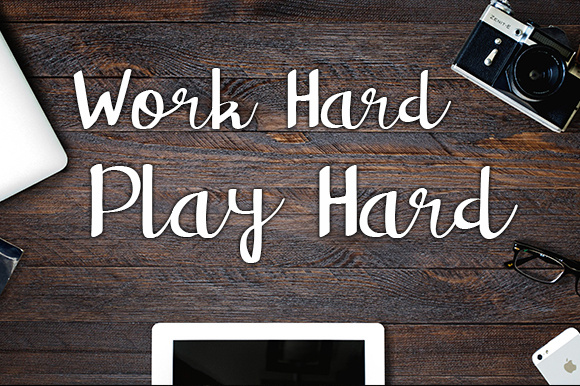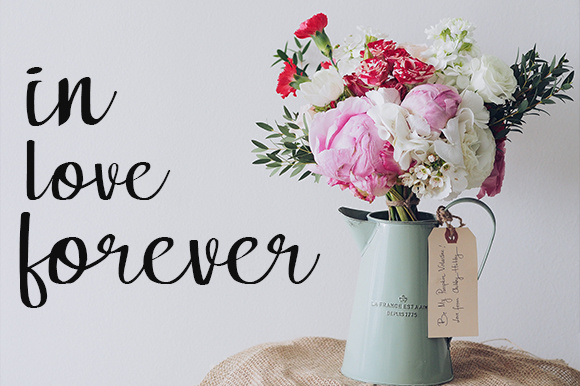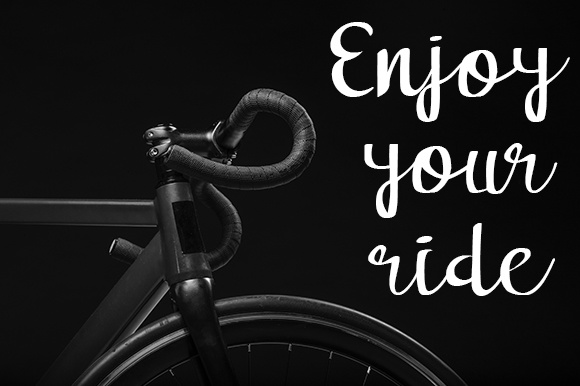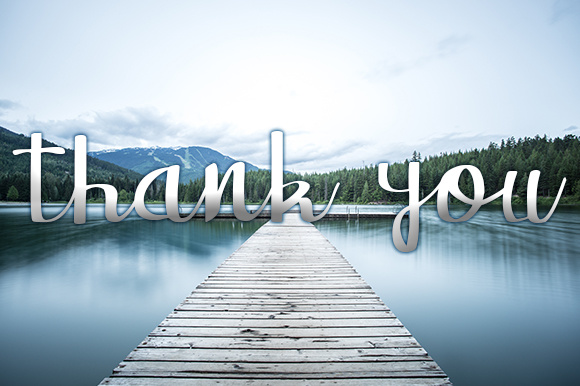
The Carpenter Font: A Beautifully Imperfect Script
I still remember the design project that led me to discover the Carpenter font. I was working on a client’s branding package, and I needed a script font that would add a touch of warmth and personality to their logo. As I scrolled through font after font, I found myself frustrated with the usual suspects – either too fancy, too plain, or just plain boring. That’s when I stumbled upon the Carpenter font, and my design woes disappeared instantly.
So, what makes the Carpenter font so special? Let’s dive into the good stuff and, of course, the tiny quirks that might make you go 🤔.
- ✨ Unique Irregular Baseline: The Carpenter font boasts an irregular baseline that gives it a beautifully organic feel. It’s perfect for adding a touch of whimsy to your designs.
- ✅ Highly Versatile: Whether you’re designing quotes, t-shirts, signage, logos, business cards, or goods, this font fits right in.
- 💫 Easy to Read: Despite its unique look, the Carpenter font remains surprisingly legible, making it perfect for both headings and body text.
While the Carpenter font is amazing, it’s not without its tiny quirks. For instance:
- ⚠️ Kerning Can Be a Bit Off: In some cases, you might need to manually adjust the kerning to get the spacing just right.
- 🤔 Limited Formality: Given its script nature, the Carpenter font might not be the best fit for super formal or corporate designs.
The Story Behind the Carpenter Font
The Carpenter font was designed with the intention of capturing the essence of handcrafted, imperfect beauty. The designer aimed to create a font that felt like it was written with a pencil – warm, inviting, and slightly quirky. While the exact details of the design process might be lost to time, it’s clear that the goal was to create something that feels both personal and versatile.
Q: What makes the Carpenter font unique?
A: The Carpenter font’s unique irregular baseline and beautifully imperfect design make it stand out.
Q: Is the Carpenter font suitable for body text?
A: While it’s primarily designed for headings, its legibility makes it usable for short body text passages.